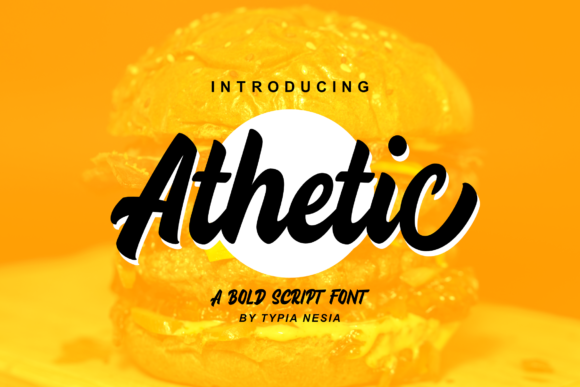
The Birth of a New Favorite: Athetic Font
Remember the moment when you stumbled upon the perfect font for your project? The one that makes your design pop and connects with your audience on a deeper level? That’s exactly what I experienced when I first laid eyes on the Athetic Font. Its unique blend of casual charm and readability had me hooked from the very start.
Athetic Font is more than just a font – it’s a carefully handcrafted masterpiece designed to become a true favorite among designers. Its versatility makes it perfect for a wide range of projects, from branding and advertising to digital products and editorial content. Whether you’re a seasoned pro or just starting out, the Athetic Font is an invaluable addition to your design toolkit.
Athletic Font Key Features
- Unique Characteristics: The Athletic Font features a bold, dynamic design with a unique blend of modern and classic elements, making it ideal for sports and fitness-related applications.
Athetic Font Review
Overall, I think Athetic Font is an interesting font with some great qualities, but it also has some limitations that might make it less suitable for certain projects.
- Athetic Font has a unique, energetic feel that can add a lot of personality to a design. It’s perfect for projects that need a bit of a bold statement.
- The font is highly legible, even at smaller sizes, which makes it great for body text or captions.
- It has a wide range of languages supported, making it a great choice for international projects.
- The font can feel a bit overwhelming if used in large blocks of text. It’s best used in moderation to avoid visual fatigue.
- It may not be the best choice for formal or professional projects, as it has a more casual, playful feel.
- The font family is relatively small, with only a few weights and styles available.
Athetic Font is a great choice for projects that need a bit of flair and personality. However, it may not be the best fit for every project. With some careful consideration and use, it can add a lot of value to your design.
Getting the Most Out of the Athletic Font
Here are some tips for getting the most out of the Athletic Font:
- Use the font to create a bold, energetic look for sports or fitness-related designs.
- Pair the font with bold, bright colors to create a striking visual effect.
- Experiment with different font sizes and styles to create a unique, eye-catching design.
The Athletic Font is commonly used for:
- Sports and fitness-related designs.
- High-energy marketing materials.
- Set Athetic Font as the primary font for your text.
- Use a bold weight for headings to create contrast.
- Experiment with different font sizes to create a visually appealing hierarchy.
- Pair Athetic Font with a clean and minimalist background to let the text take center stage.
- Use a limited color palette to create a cohesive look.
- Add geometric shapes or icons to break up the text and create visual interest.
- Set Athetic Font as the primary font for your brand name and logotype.
- Use a custom color scheme to match your brand’s aesthetic.
- Experiment with different font sizes and weights to create a visually appealing hierarchy.
- Pair Athetic Font with a bold and modern logo to create a cohesive look.